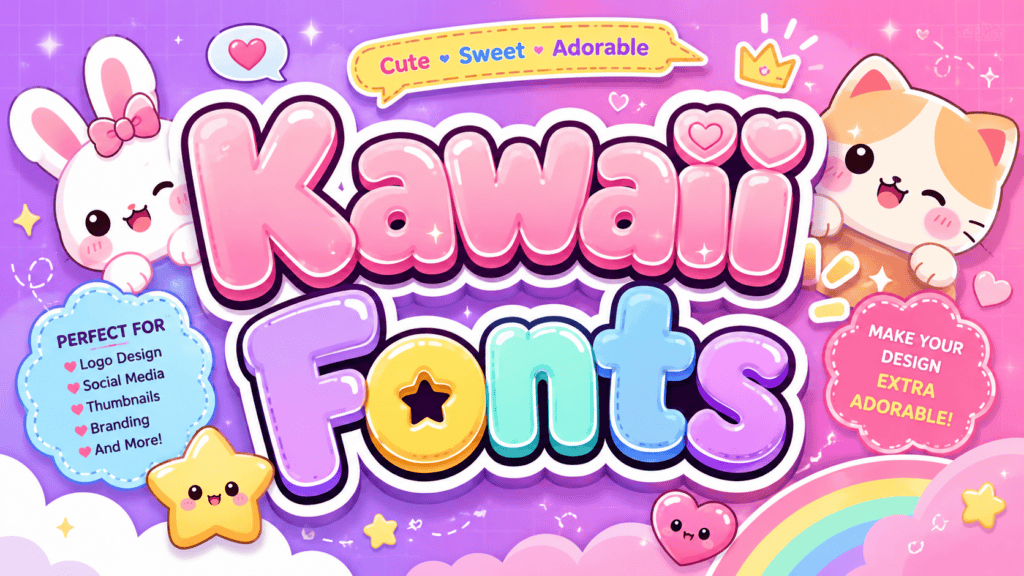
Kawaii typography, deeply rooted in Japanese culture, carries an unmistakable adorable quality shaped by Sanrio, anime, and Harajuku aesthetics. These stylized text styles pack maximum cuteness into standard letters, making every message feel genuinely playful.
Unlike regular fonts, kawaii designs use Unicode characters, symbols, and special characters that render across all languages and computers. This universal standard means you can copy and paste cute fonts from any generator instantly, everywhere.
Cute Font Categories
Cute Text
Cute text turns boring words into something truly lovable and stylish. With rounded letters, kawaii styles, and aesthetic touches, your text gains a soft, unique vibe that naturally shines across social media, Discord, and WhatsApp.
Best Cute
The best cute fonts blend soft script styles with genuine aesthetic charm. From circled letters to kawaii faces, each category delivers cutest fonts in an organized way where hearts, flowers, and sweets inspire every design.
Kawaii Faces
Kaomoji are Japanese text characters crafted with emojis, punctuation, and letters to form expressive cute faces. These adorable, animals-inspired, bubbly designs carry fun emotional appearance through simple symbols, making digital pop culture communication more vibrant.
Hearts
Heart motifs in kawaii typography feel cozy, joyful, and deeply sweet. They elevate any bio or caption, turning plain text into charming, unforgettable style that resonates with Love, kawaii vibes, and genuine friendly creative warmth.
Animals
Every animal design in kawaii fonts carries something deeply expressive. A bunny motif shifts plain text into something warm and memorable. Any true lover of cute typography knows animals breathe life into digital identity effortlessly.
Flowers
Kawaii fonts styled with cherry blossom motifs bring a feminine, Whimsical energy to pastel aesthetics. Cheerful Doodles of petals in rounded letterforms feel ideal for greeting card designs, planner pages, and soft girl Instagram bios.
Sweets
Candy shapes kawaii style in ways that feel simple yet profoundly expressive, much like soft sparkles scattered across a night sky full of stars. These sweet typographic choices radiate warm vibes, making messages genuinely delightful.
Aesthetic
The kawaii aesthetic fonts genre uniquely relies on smooth, gentle flowing curves and bubble-like shapes that feel naturally approachable, never rigid. Quirky proportions blend vintage casual handwritten warmth with modern display sensibility and recognizable charm.